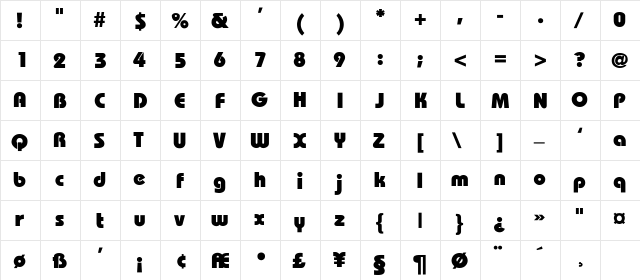
Bauhaus-Heavy-Bold Regular
Design Context for Bauhaus-Heavy-Bold Typeface
Bauhaus-Heavy-Bold offers clean, dependable letterforms without strong stylistic allegiance, making it a practical choice for designers who need flexibility. Its bold stroke weight gives it real presence on the page.
Pro Tip: Use Bauhaus-Heavy-Bold in both headline and body roles to test its range before committing to a single application.